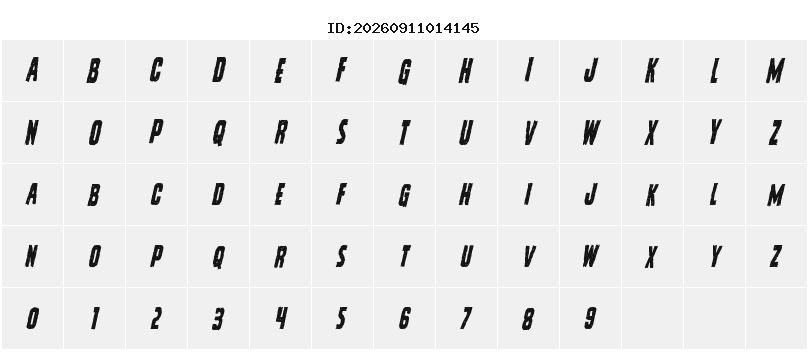
Vicious Hunger Condensed Italic Preview
• Font Name: Vicious Hunger Condensed Italic
• Font Style: Condensed Italic
• Full Font Name: Vicious Hunger Condensed Italic
About Vicious Hunger Condensed Italic.ttf
Vicious Hunger Condensed Italic.ttf is a modern, elegant sans-serif font designed for ultimate readability and visual harmony. Perfect for branding, headlines, web design, and print materials.